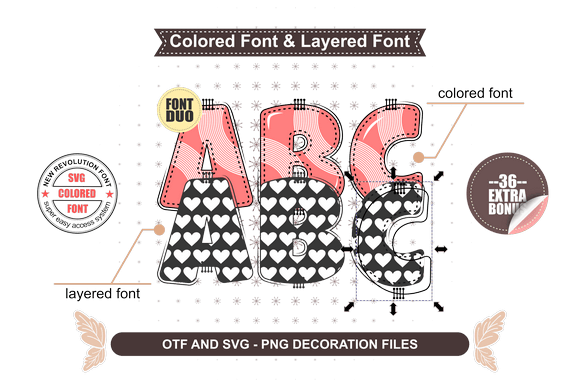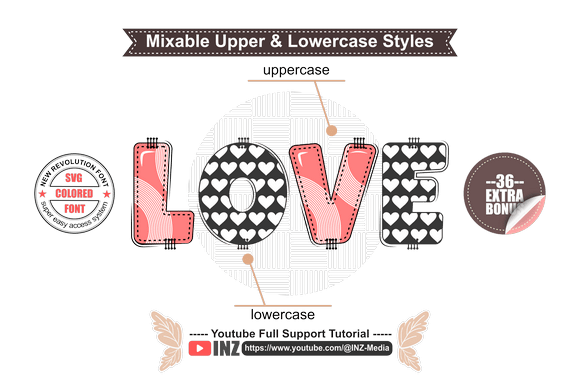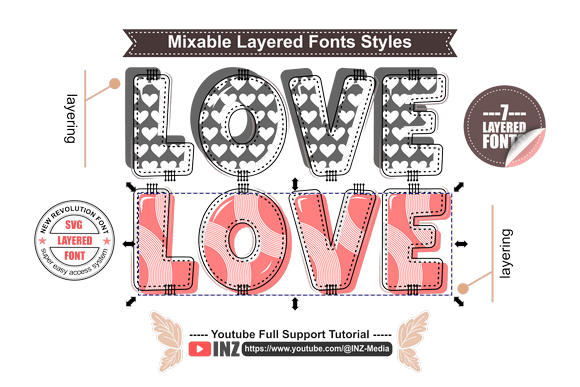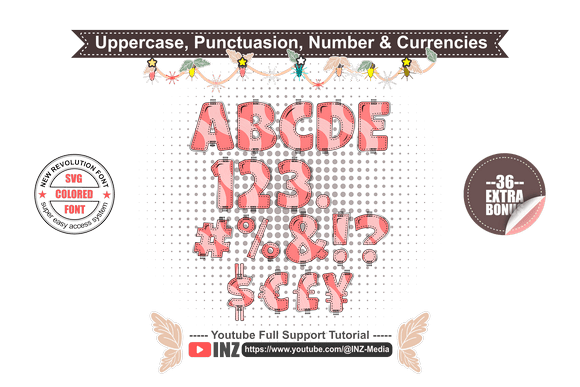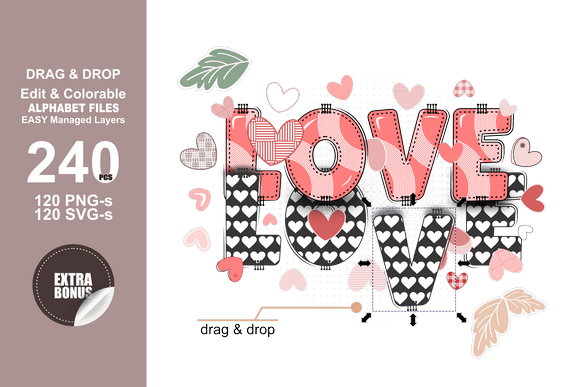
Introduction to Love Bundle Font
Transform your creative projects with the Colored svg font and Layered Fonts Bundle, featuring bold, love-themed layered letters adorned with hearts and playful patterns.
Key Features of Love Bundle Font
Why Choose Love Bundle Font?
Love Bundle Font offers exceptional quality and versatility, making it a valuable addition to your design toolkit. Whether you’re creating for personal projects or commercial use, Love Bundle Font delivers professional results.